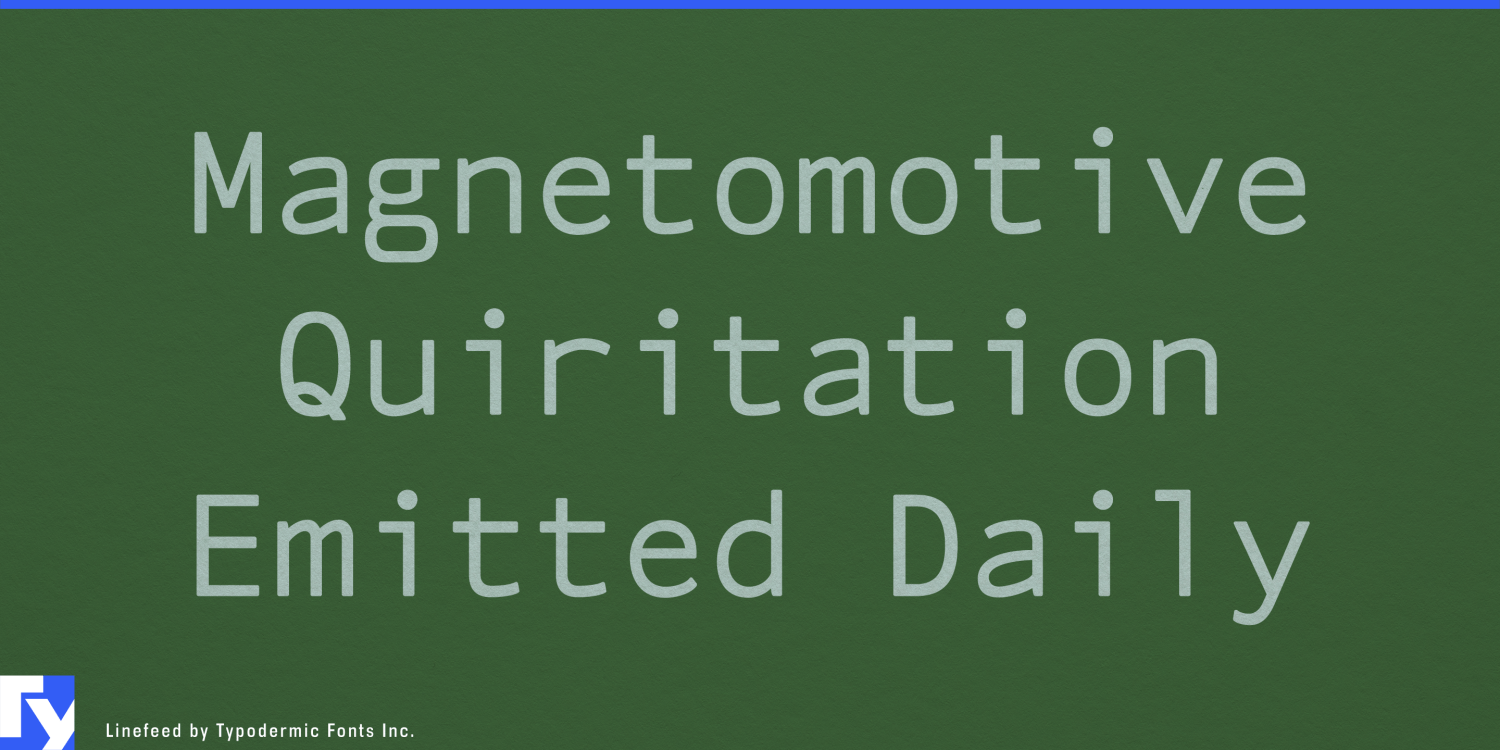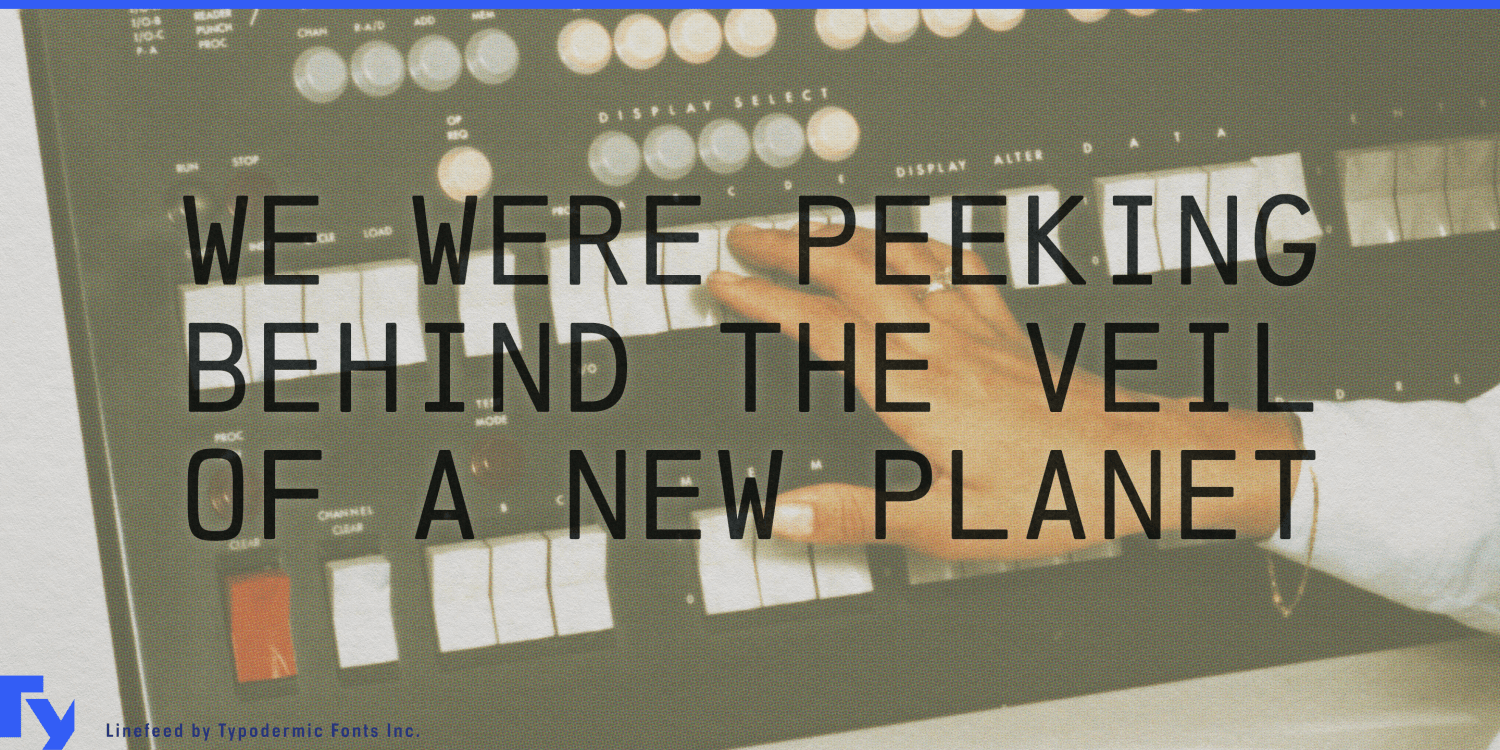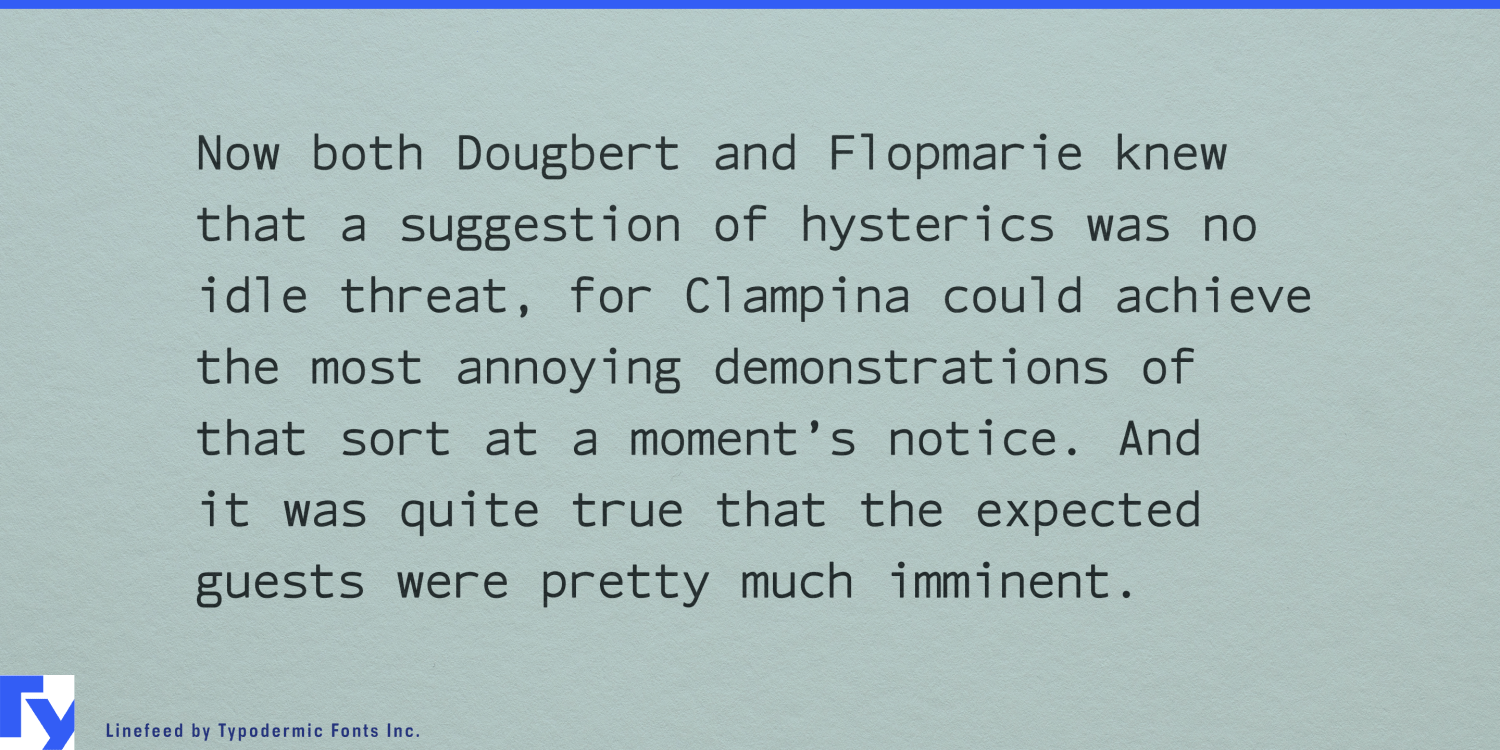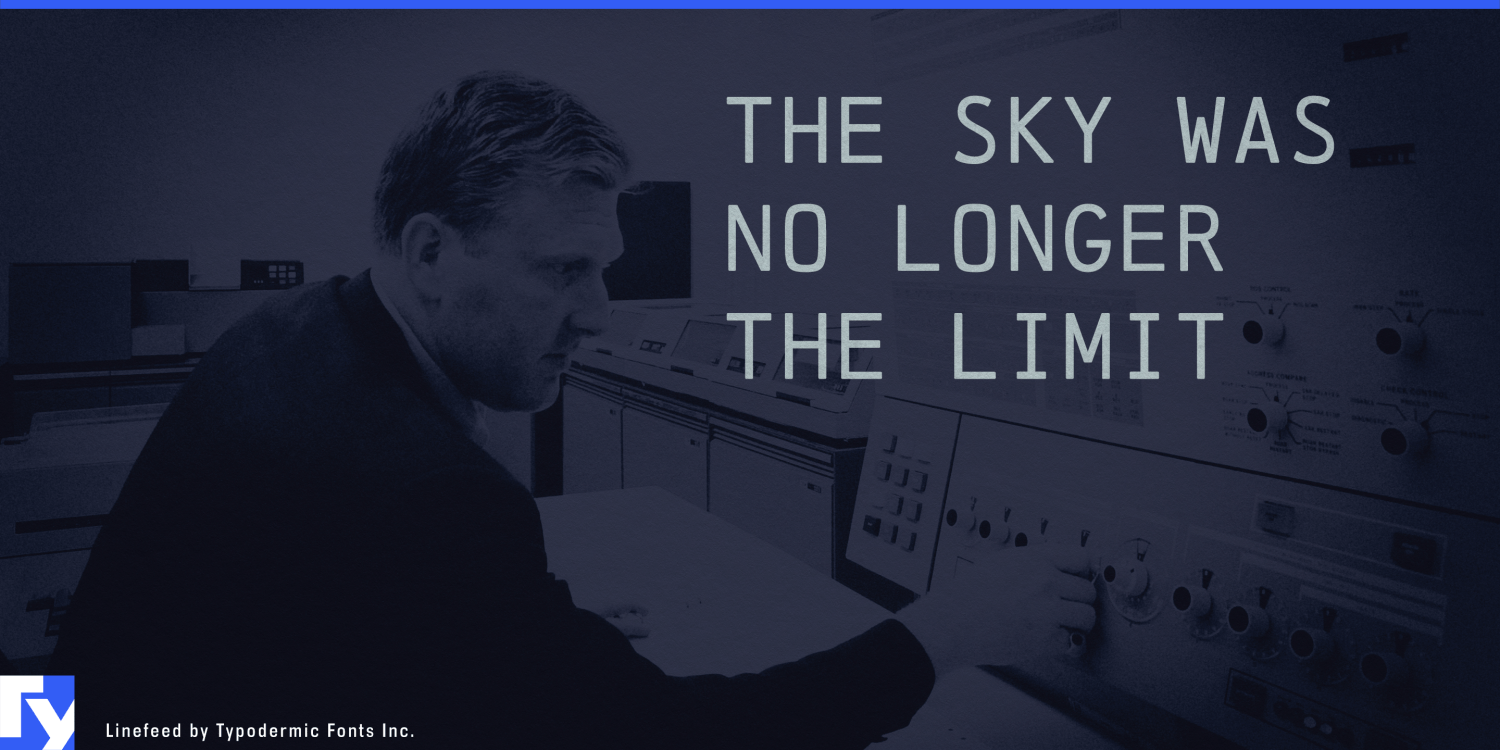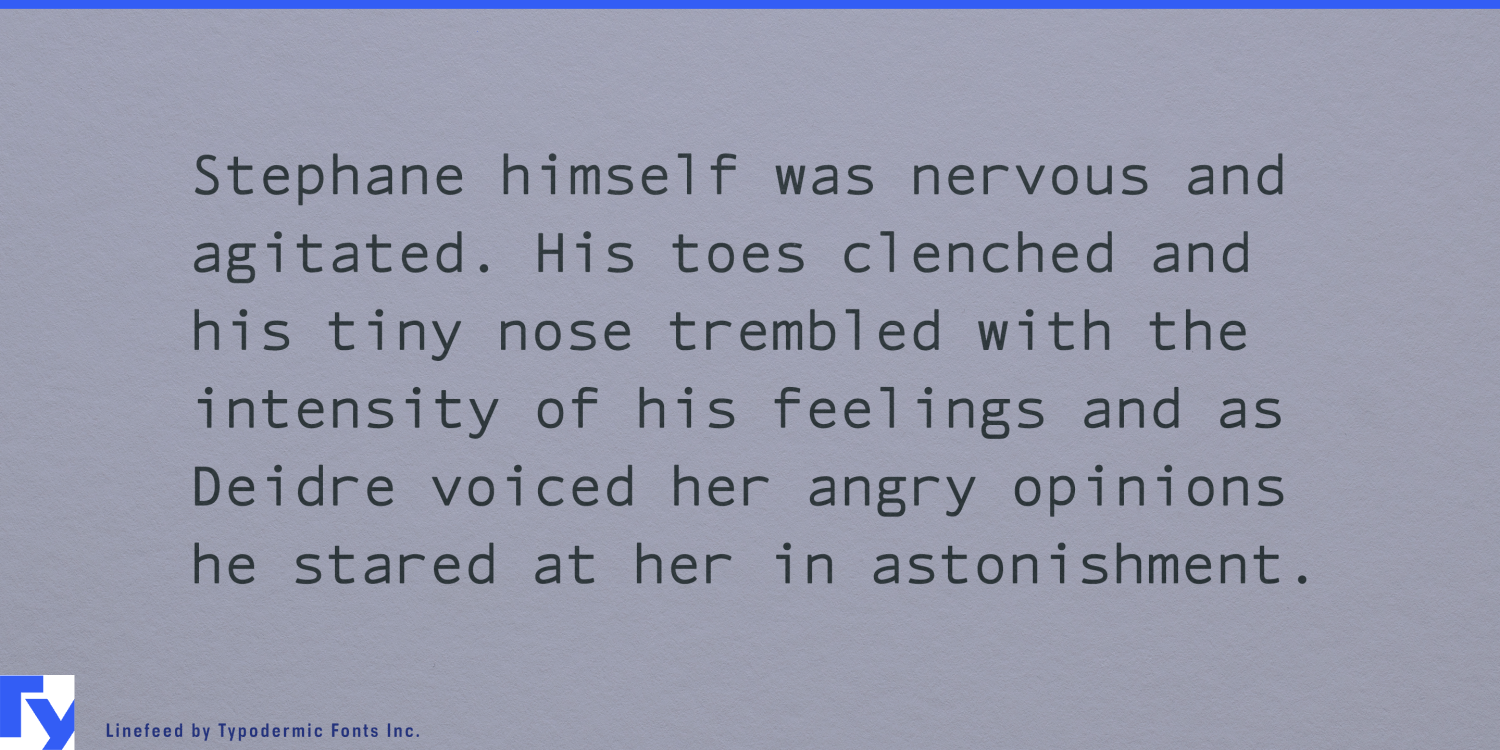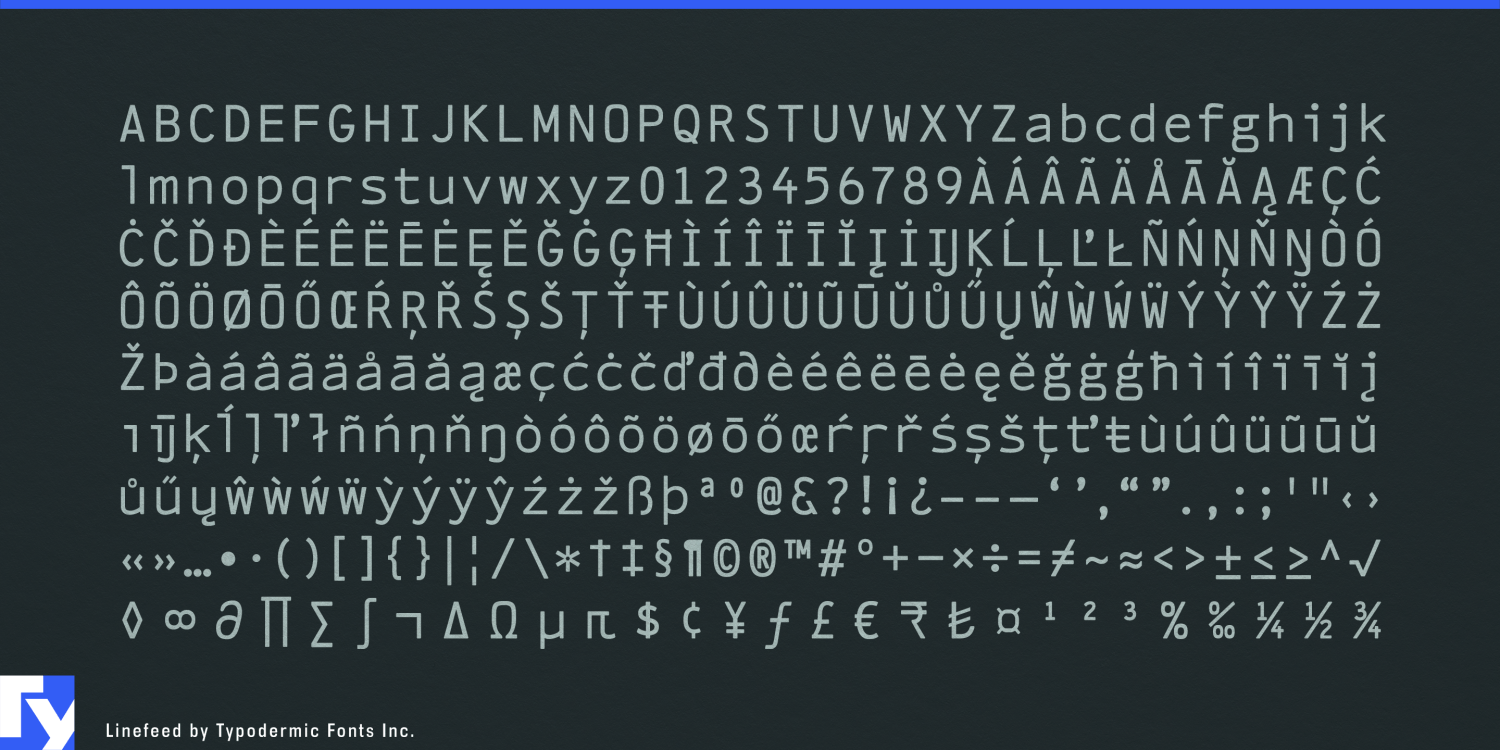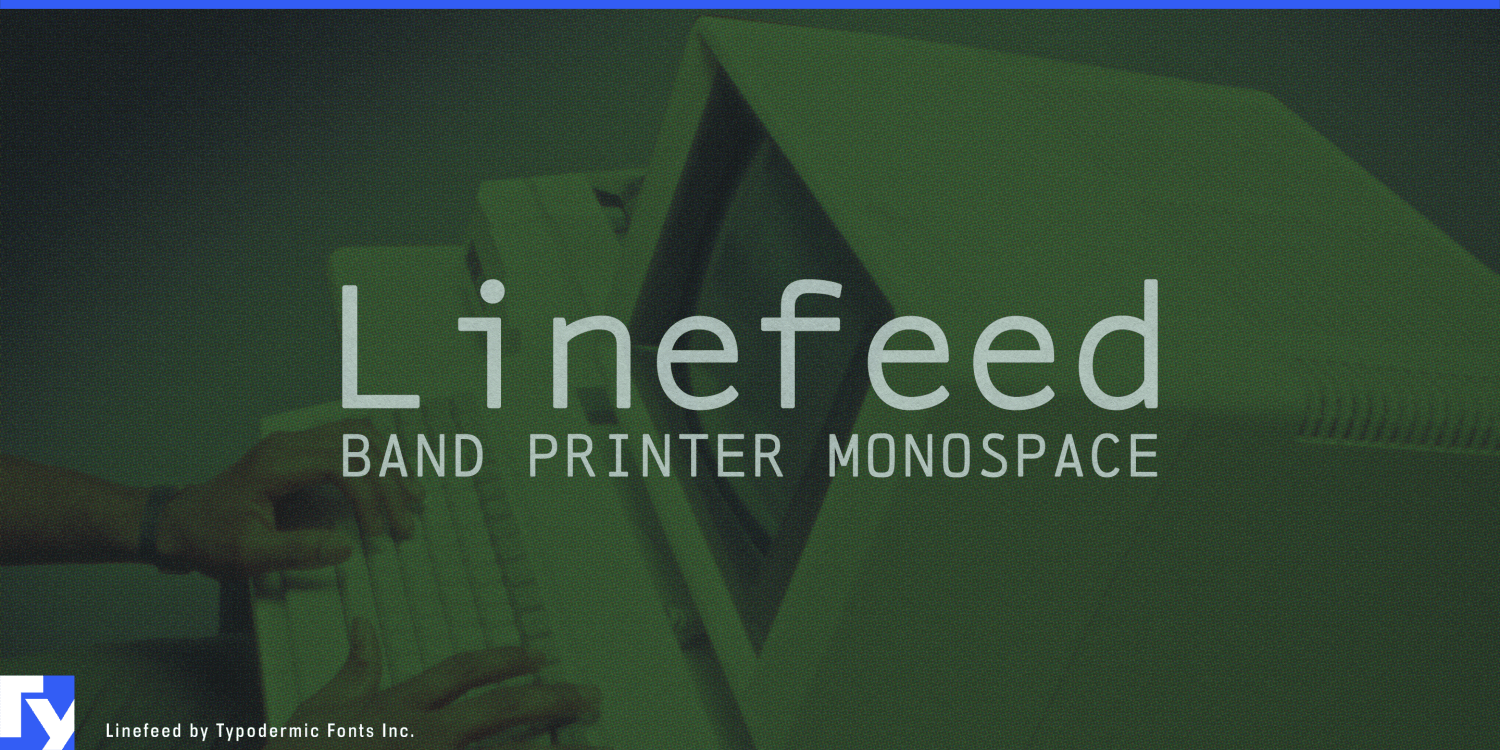
Linefeed
About Linefeed
Step back into the era of whirring machines and groundbreaking technology with Linefeed, a monospaced typeface that captures the essence of 1960s and ’70s computer band printers. This retro-inspired font pays homage to the clunky yet revolutionary…